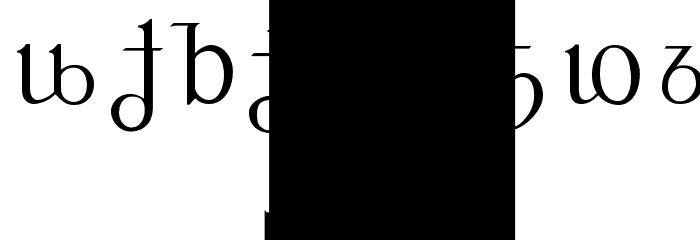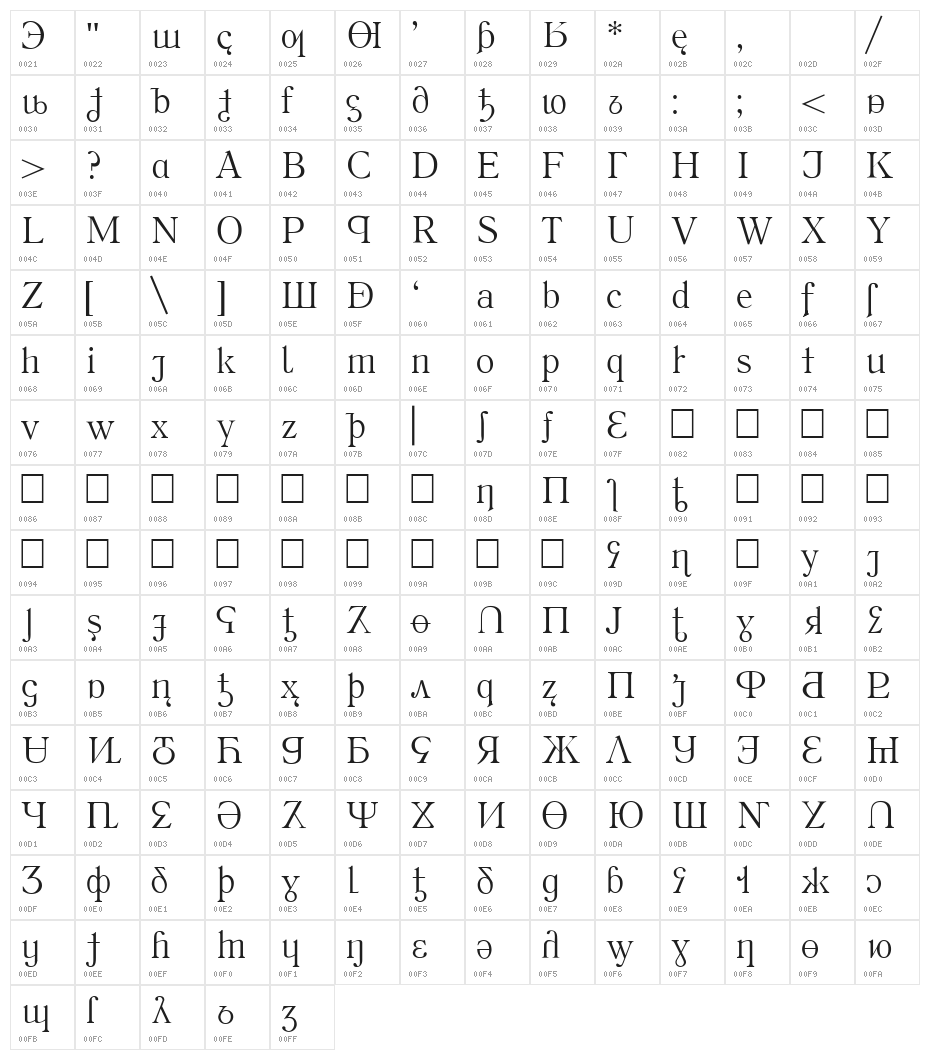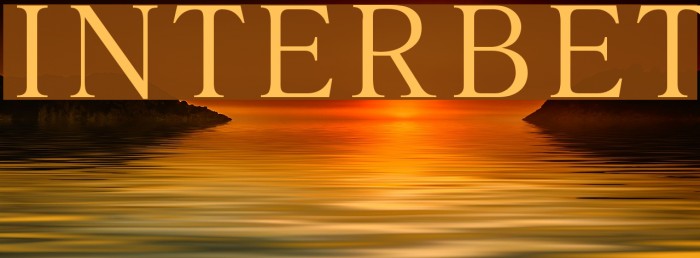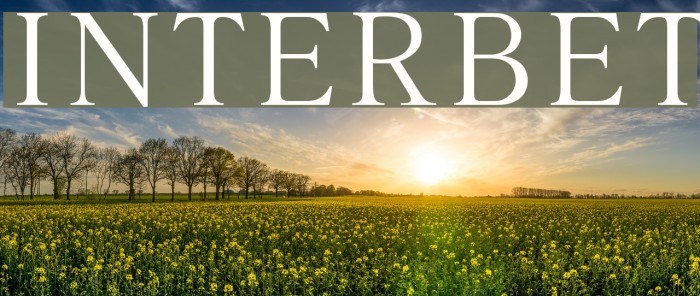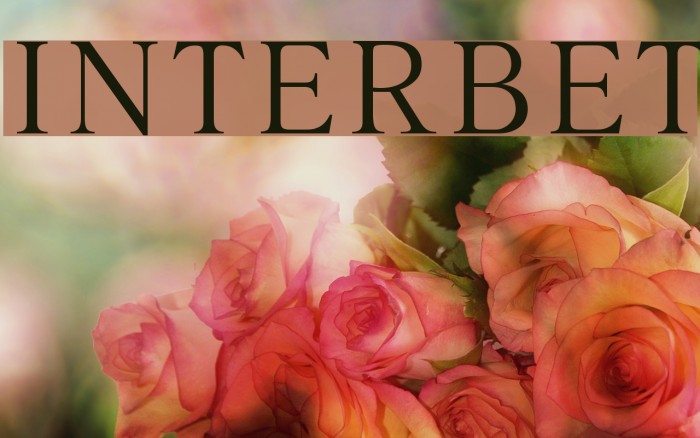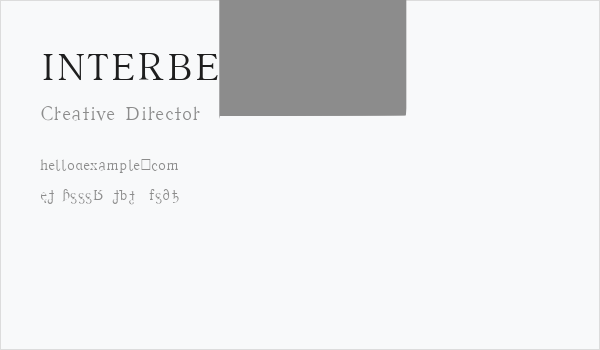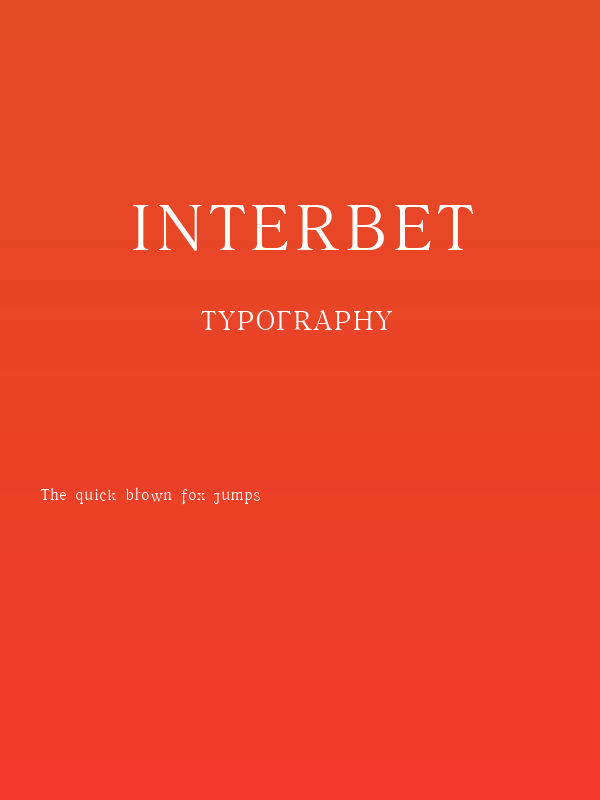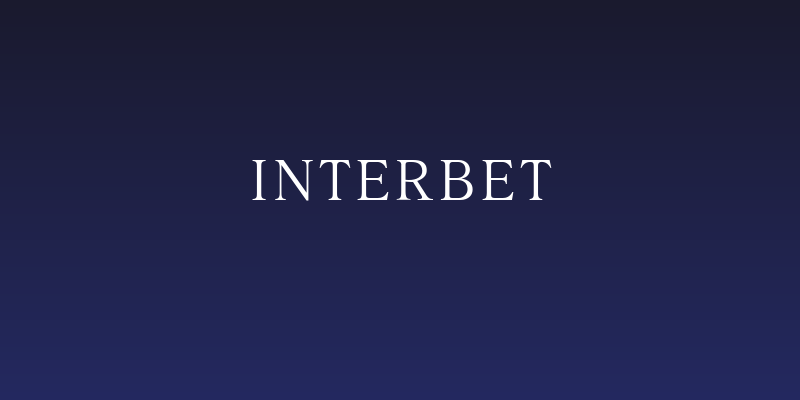
INTERBET Font
INTERBET Description
This font features a unique blend of classic and modern elements, characterized by its distinct serif style. The uppercase letters are elegantly proportioned, with a slight flair at the ends of the strokes, giving it a sophisticated appearance. The lowercase letters maintain a consistent flow, with some characters exhibiting a playful twist, adding a touch of creativity. The numerals are clear and legible, complementing the overall design. The special characters are well-integrated, maintaining the font's cohesive look. This font's versatility makes it suitable for a variety of design projects.
| Proposed Projects | Ideal for editorial design, book covers, branding, and elegant invitations. |